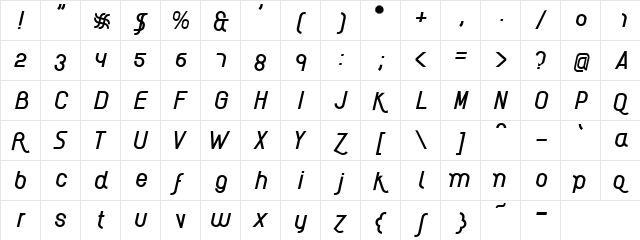
AI kelso I
Design Context for AI kelso Typeface
AI kelso offers clean, dependable letterforms without strong stylistic allegiance, making it a practical choice for designers who need flexibility.